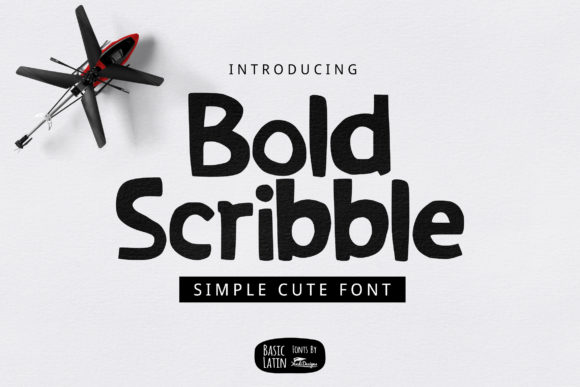
The Bold Scribble Font: A Game-Changer for Crafty Designs
I’ll never forget the time I was working on a project for a client who wanted a bold, eye-catching font to make their brand stand out. I spent hours scouring the internet for the perfect font, but nothing seemed quite right. That was until I stumbled upon the Bold Scribble font. Its unique, clean display style instantly caught my attention, and I knew I had found the one. In this article, I’ll share my experience with Bold Scribble, its features, and how to make the most of it in your designs.
An Honest Review of Bold Scribble
• ✨ Unique and original look: Bold Scribble’s style is unlike any other font out there. Its bold and clean design makes it perfect for a wide range of crafty ideas.
• ✅ Ease of use: The font is incredibly easy to read and works well in various design contexts, from letterheads and titles to stationery.
• 💡 Versatility: Bold Scribble can be used for both digital and print designs, making it a great addition to any design library.
While Bold Scribble is an excellent font, there are a few things to keep in mind:
• 🤔 Limited use in body text: Due to its bold style, Bold Scribble may not be the best choice for body text. It’s better suited for headings and titles.
• ⚠️ Glyph compatibility: Some glyphs may not work seamlessly with all design software or platforms. Make sure to test the font in your preferred software before using it in a project.
The Designer Inspiration Behind Bold Scribble
The story behind Bold Scribble’s creation is one of passion and dedication. The font was designed by a team of creatives who wanted to create a unique and versatile font that would appeal to designers, crafters, and creative hobbyists. With its bold and clean design, Bold Scribble is the perfect addition to any design library.
Q: What is the best way to use Bold Scribble in my designs?
A: Bold Scribble is best used for headings and titles, where its bold style can make a statement. You can also use it for digital and print designs, such as letterheads, stationery, and social media graphics.